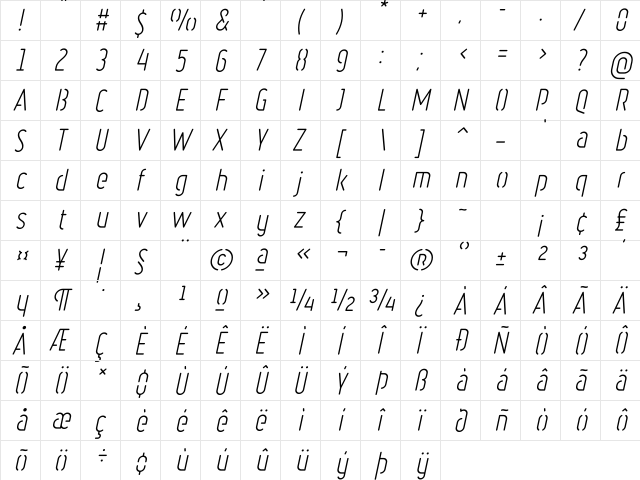
Ruler Stencil Light Italic
Design Context for Ruler Stencil Light Typeface
Ruler Stencil Light borrows the utilitarian aesthetic of stencil lettering, with its characteristic cutaways and no-frills construction lending an industrial edge. The slanted form adds forward momentum and visual energy. Its slender proportions lend an understated elegance to any composition.
Ideal for industrial branding, streetwear, military-adjacent aesthetics, and urban signage projects.
Pro Tip: Pair Ruler Stencil Light with raw, utilitarian design elements — exposed concrete textures, flat colour, and minimal ornamentation suit it well.